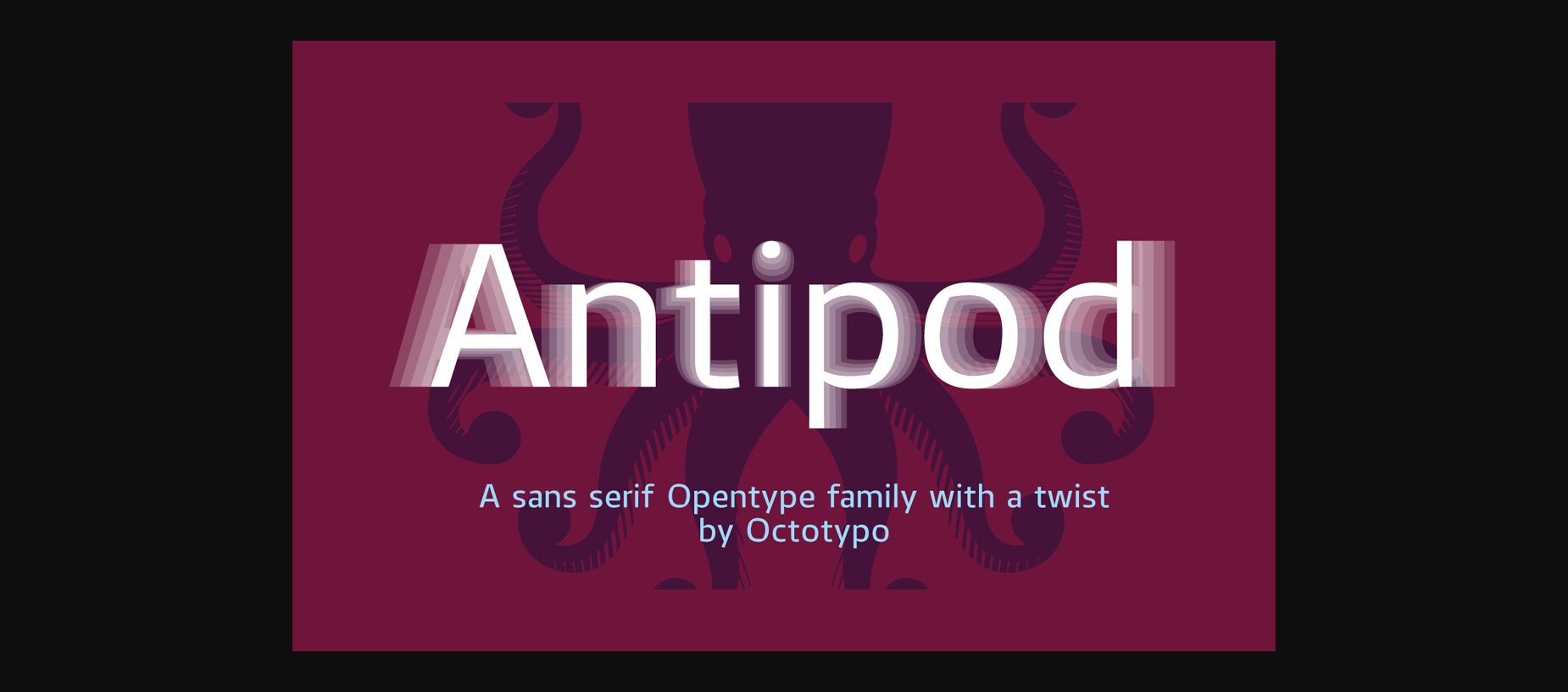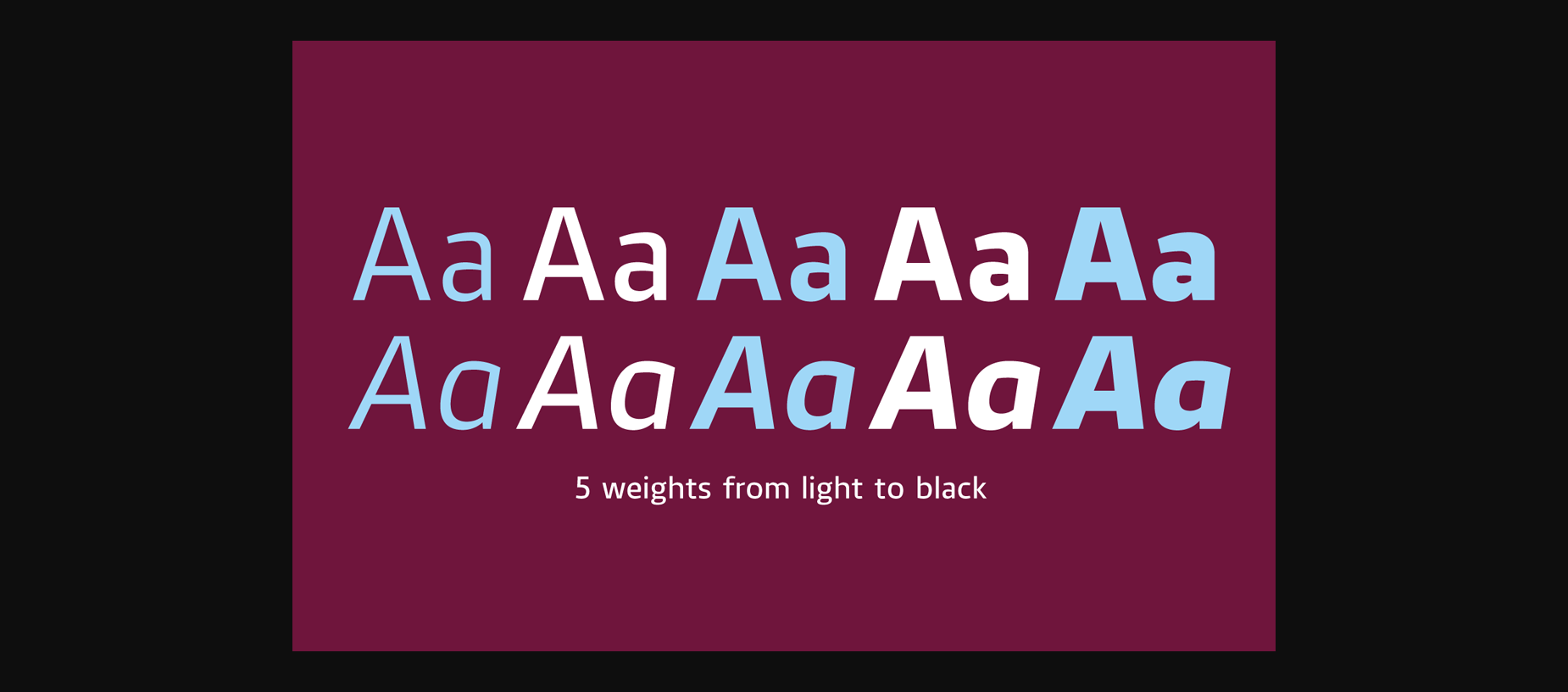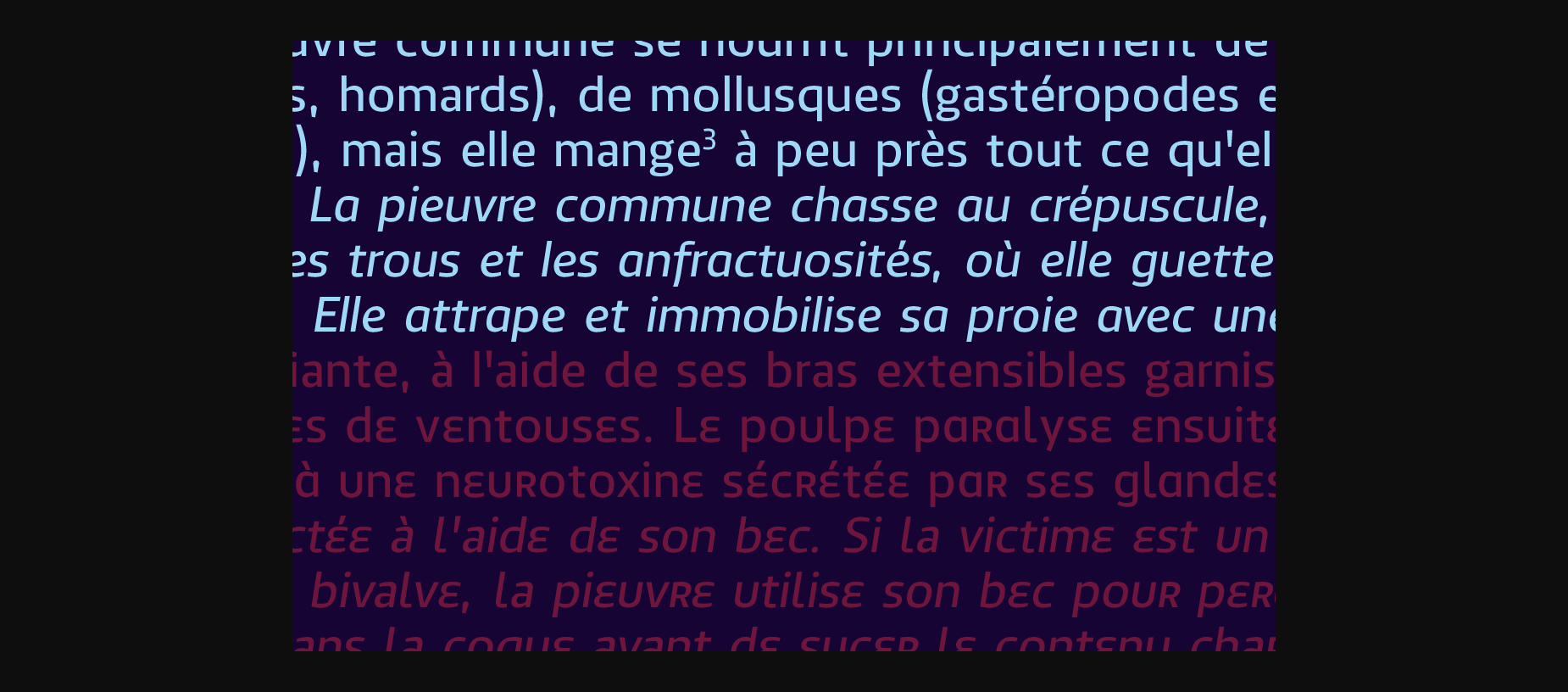
About Antipod Font
Antipod emerges as a multifaceted sans-serif typeface family meticulously crafted with the stroke of a nib at its core.
Initiated through sketches drawn with a reed pen, the design journey ensured the preservation of precise junctions between verticals and horizontals, establishing a harmonious balance between curves and sharp inner corners. This interplay of contrasting elements defines the distinct character of Antipod.
Even at smaller sizes, the subtle intricacies of Antipod contribute to its unique type color, adding depth and personality to text settings. Particularly well-suited for display purposes, Antipod imbues designs with a bold and distinctive aesthetic.
Each weight of Antipod features additional glyphs, enriching text settings with individuality. Moreover, it boasts extended language support, tabular figures, fractions, and more, catering to diverse design needs across editorial, signage, corporate, and digital applications.
Initiated through sketches drawn with a reed pen, the design journey ensured the preservation of precise junctions between verticals and horizontals, establishing a harmonious balance between curves and sharp inner corners. This interplay of contrasting elements defines the distinct character of Antipod.
Even at smaller sizes, the subtle intricacies of Antipod contribute to its unique type color, adding depth and personality to text settings. Particularly well-suited for display purposes, Antipod imbues designs with a bold and distinctive aesthetic.
Each weight of Antipod features additional glyphs, enriching text settings with individuality. Moreover, it boasts extended language support, tabular figures, fractions, and more, catering to diverse design needs across editorial, signage, corporate, and digital applications.